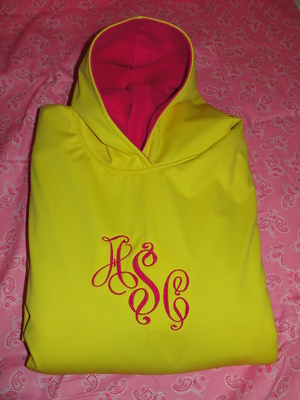
I'm looking for a large monogram font for the front of an adult sweatshirt.
I once got a 6 inch font from Apex, but I don't know the link. It is 6inch Apex Victor font. You can see where I used it on this yellow rain poncho, although I did have to reduce it. When I put the 3 letters together it was too large for my 5x7 hoop, but it stitched fine. I reduced it 10% at a time. Welcome to Cute !
Hang to dry also has some nice ones.
They do have some nice ones, I just looked. I haven't stitched any from there, but I do like the ones I have stitched from Apex. I am sure these stitch good as well, if you recommended them. Thanks for the link,jrob.
I've used several of their designs. They are very good.
Hello and welcome! Both of these have great sets, jolsons gives you multiple sizes.
Hi Welcome to Cute! Is it for lady or gent. The most popular mono of the day would be theitch2stitch elegant scroll. Not sure for men, 8 clawsandapaw.
I just got the Intertwined Vine Monogram from The Itch to Stitch! Stitches out great! It comes in 2 different sets...one small & the other very large. Go to the site & look around.
When you find your font, I saw a fabulous sweatshirt at Chrstmastme with a huge fill the chest size monogram. The font was applique and she used a really wild, loud bright colored fabric that looked out of the 1960's hippie psychedelic times. It carried across the different letters visually and looked fantastic. I have found a modern design fabric with lots of color, but haven't chosen my font yet!
Some time ago I bought "Wild Side" font 8 1/2" tall from Emb.Library and it has a scrollwork background that you can use or not stitch leaving the actual letter still around 4 1/2" tall. I like the versatility.